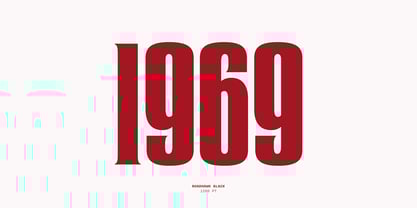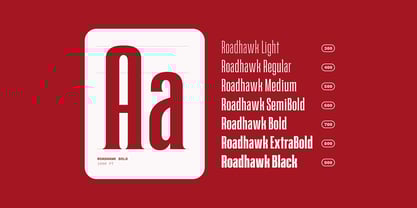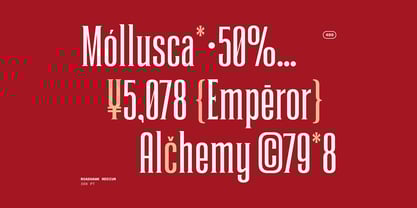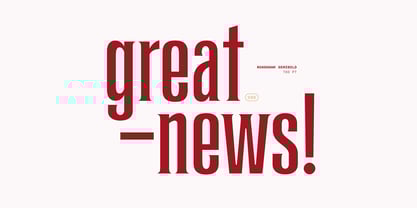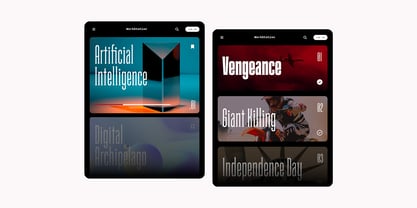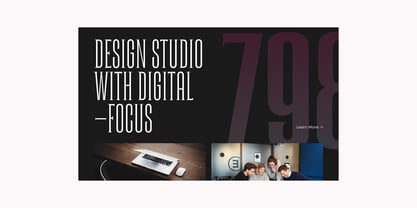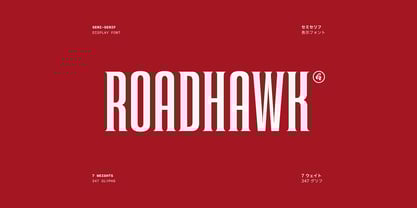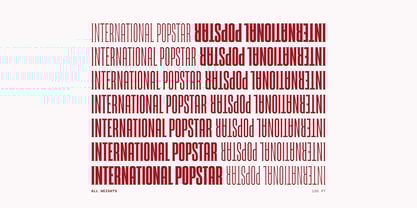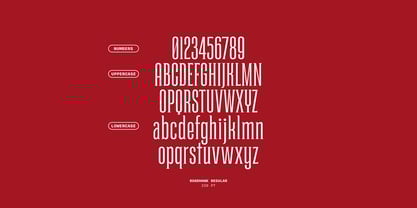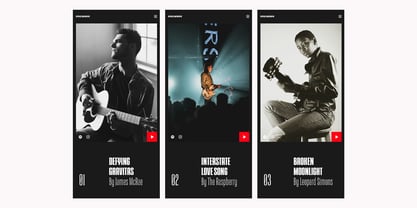
Roadhawk
The Roadhawk Font Family was designed by Tulus Driyo and published by Hindia Studio. Roadhawk contains 7 styles and family package options. More about this family
Roadhawk is a modern, utilitarian typeface designed for clarity and versatility. The straightforward design emphasizes legibility, with minimal serifs or decorative elements, suggesting a focus on functionality in contexts like signage, technical documentation, or digital interfaces. Its uniform stroke widths and open letterforms enhance visibility at various sizes, while the inclusion of a complete character set ensures adaptability across languages and symbols. Whether for branding, UI/UX design, or industrial labeling, Roadhawk combines practicality with a subtle modern edge.
Designers: Tulus Driyo
Foundry: Hindia Studio